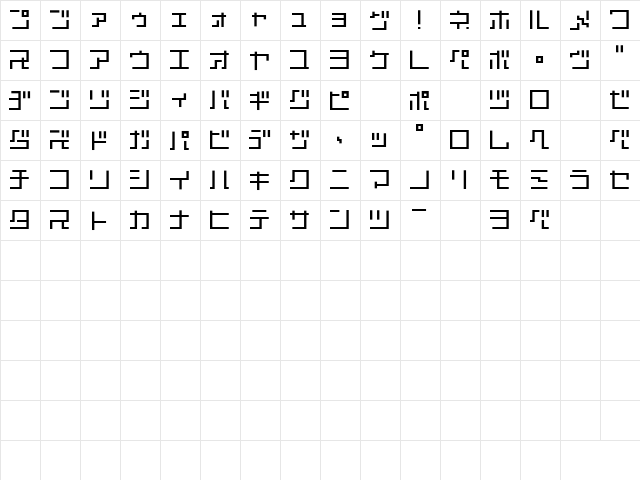
XSquare Katakana Regular
Design Context for XSquare Katakana Typeface
XSquare Katakana is a composed and adaptable typeface that performs quietly and consistently across a wide range of design contexts.